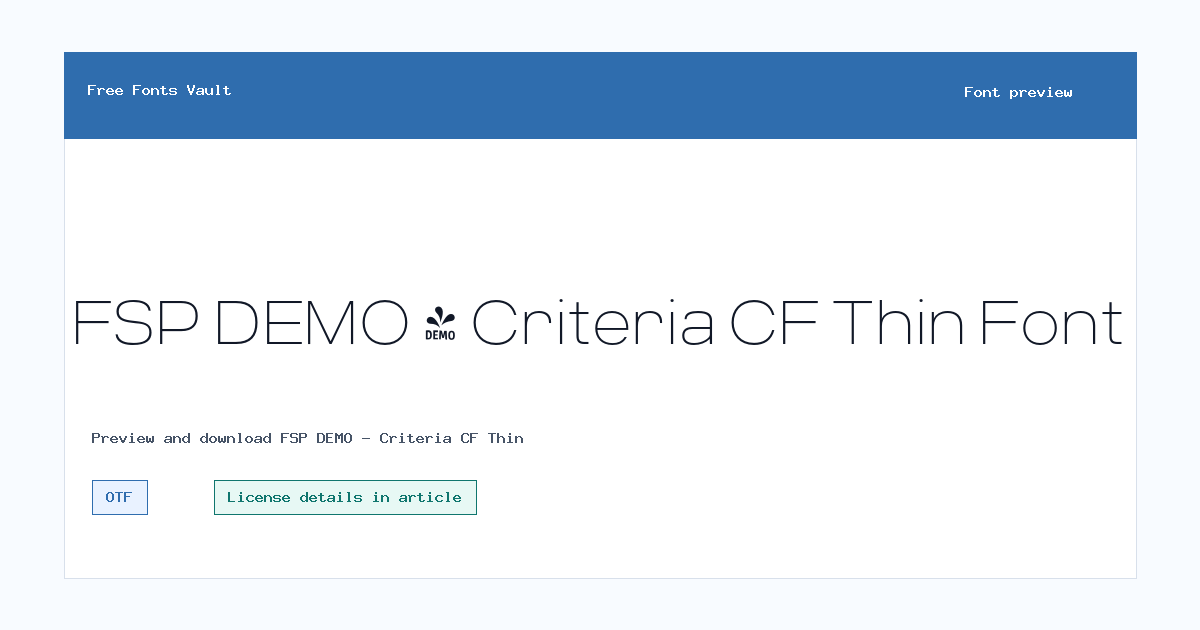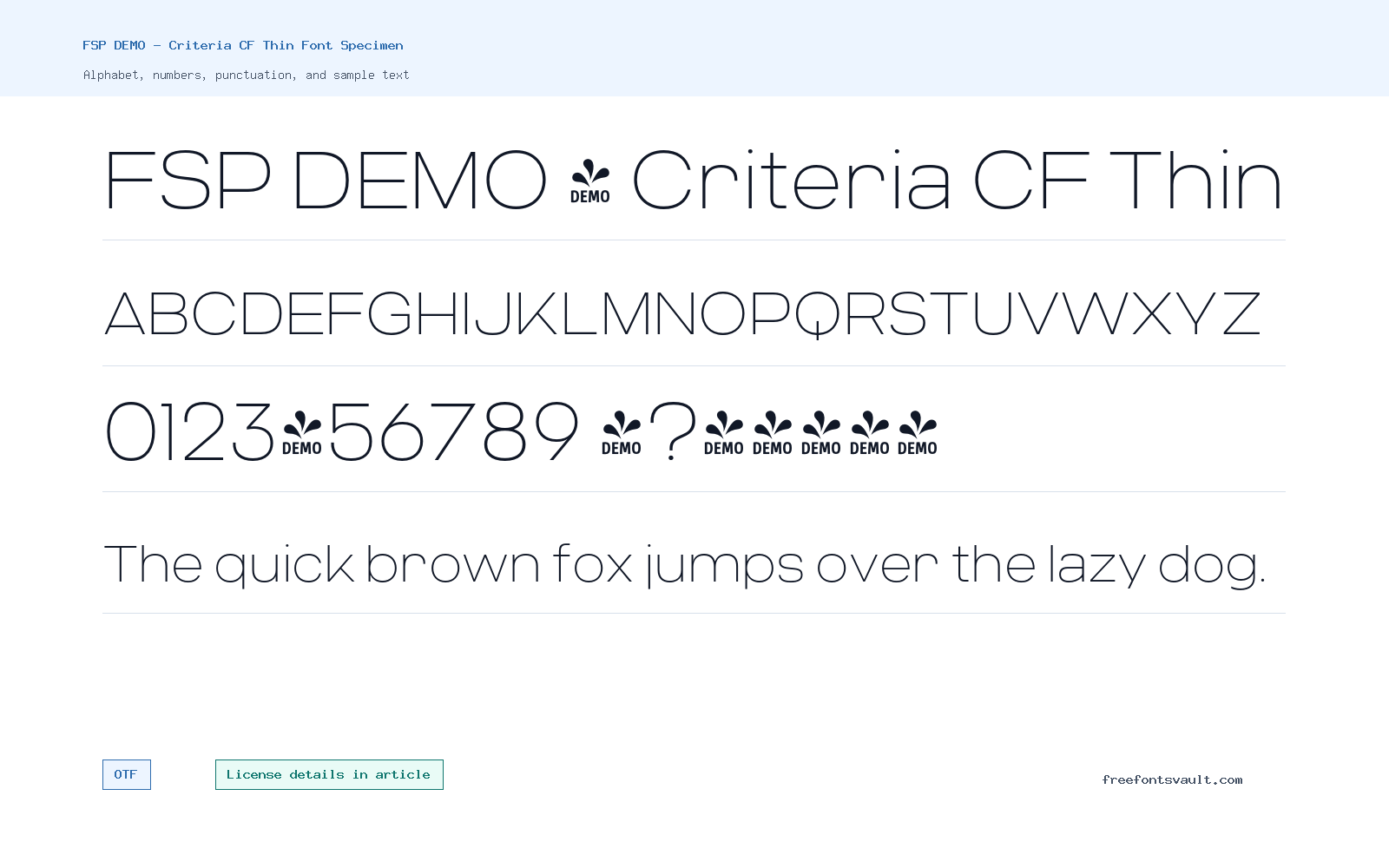
FSP DEMO - Criteria CF Thin
FSP DEMO – Criteria CF Thin font.
Criteria CF Thin is a very light 100-weight OTF style by Connary Fagen, made for clean preview layouts where a delicate sans-serif title treatment is useful.
About Criteria CF Thin
Criteria CF Thin has a quiet, minimal presence because of its 100 weight. Thin fonts can look elegant in large headings, nameplates, editorial covers, product labels, and modern brand mockups, but they need enough size and contrast to stay readable. Use the preview with the actual words you plan to set, not only the sample text.
Thin weights can disappear on busy backgrounds, low-resolution screens, and small UI labels. Keep Criteria CF Thin for short, high-contrast text, and pair it with a stronger regular-weight companion font for paragraphs, captions, menus, and product details. If the layout needs accessibility or small-screen readability, test the font at mobile sizes before choosing it.
- Clean sans-serif direction for light display typography
- Best at larger sizes with strong contrast
- Useful for mockups, headings, labels, and brand tests
- Large minimal headings and elegant title treatments
- Brand mockups, editorial layouts, posters, and labels
- Short interface labels where contrast is strong
- Testing a light sans-serif tone before licensing
- Pairing with regular or medium body fonts for readability
- Non-final previews where the demo status is understood
Set Criteria CF Thin large enough to keep the strokes visible. Avoid low-contrast backgrounds, test on mobile sizes, and use a stronger companion font for body text or dense information. For production artwork, compare the thin cut against a regular weight on the same background so hierarchy and legibility stay balanced.
What weight is Criteria CF Thin?
It is listed with a 100 weight, which is a very thin style.
Is Criteria CF Thin good for body text?
It is better for large display text. Use a stronger, more readable font for paragraphs and small details.